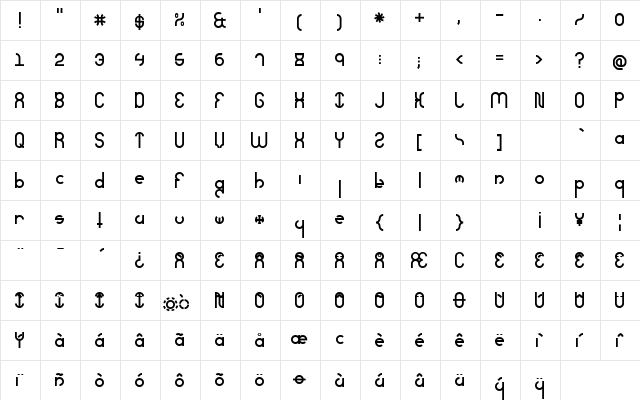
Severely Extreme
Design Context for Severely Typeface
Severely takes a measured approach to typography — its balanced proportions and neutral character make it a reliable workhorse for both digital and print work.